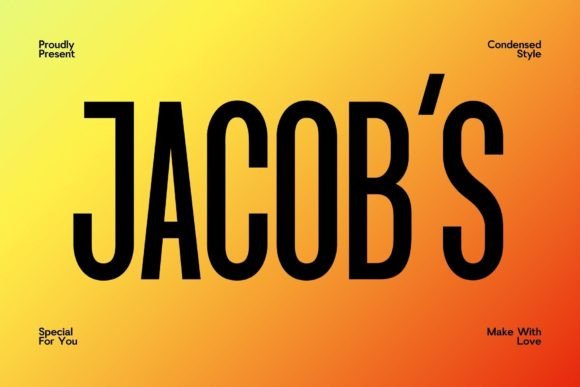
Introducing Jacob's Font: Bold and Beautiful Sans Serif for Flawless Catalog Design
Dive into an exquisite world of typography with Jacob's Font, the striking sans serif creation by alifgraphic. This masterful font family embodies modern elegance, perfect for injecting a touch of sophistication into your catalog designs. Explore a realm of distinctive letterforms, thoughtfully crafted to exude a captivating presence on the page. Jacob's Font redefines the art of catalog design, providing a flawless canvas to showcase your products and ideas.
Unleash the power of Jacob's Font, the perfect symphony of neat lettering, inviting modernism, and timeless elegance. Its carefully crafted letters dance across the page, creating a visual masterpiece that speaks volumes. Experience the beauty of typography as Jacob's Font elevates your catalog designs to new heights.
With Jacob's Font at your fingertips, discover a new level of creative freedom. Witness the magic as your words come alive, effortlessly communicating your message with clarity and impact. From product descriptions to captivating headlines, Jacob's Font ensures your catalog captivates and engages your audience.
Elevate Your Catalogs with Jacob's Font
Indulge in the artistry of Jacob's Font and transform your catalogs into breathtaking visual journeys. Its impeccable lettering harmonizes effortlessly with high-quality product images, creating a cohesive and immersive experience for your customers. Jacob's Font is not merely a font; it's an invitation to embark on a sensory adventure, leaving a lasting impression on every reader.
Step into the world of Jacob's Font and unlock a treasure trove of creative possibilities. Its versatility shines through in a myriad of design applications, effortlessly adapting to any concept or theme. Whether you're crafting product brochures, fashion catalogs, or lifestyle magazines, Jacob's Font seamlessly blends with your vision, expressing your unique brand identity.